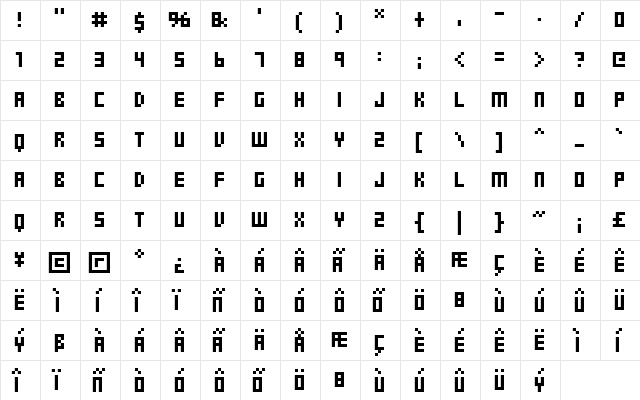
FFF Simplicity Extended Regular Font Preview
FFF Simplicity Extended Regular
FFF Simplicity Extended Regular Font Details
Design Context for FFF Simplicity Extended Typeface
FFF Simplicity Extended offers clean, dependable letterforms without strong stylistic allegiance, making it a practical choice for designers who need flexibility.